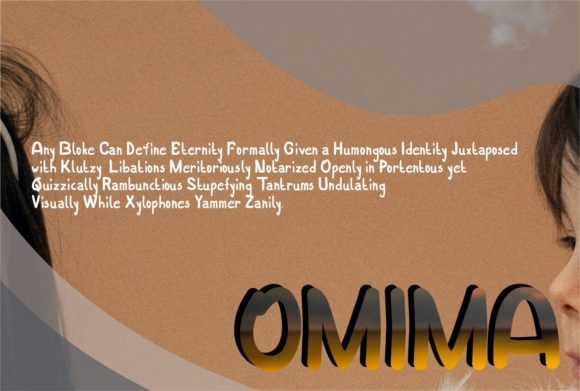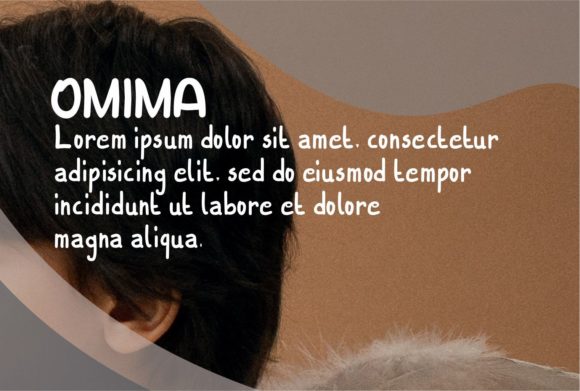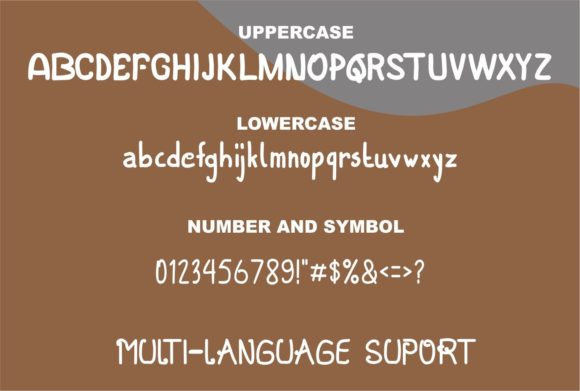
Discover the Power of Omima Font
Remember that moment when you’re brainstorming ideas for your next creative project and the perfect font just isn’t coming to mind? You’ve scoured through countless design resources, searching for that one font that will elevate your design to the next level. Well, search no more. Introducing the Omima Font, a clean and adaptable display font that’s sure to take your designs to new heights.
Whether you’re working on a poster, flyer, or print project, the Omima Font is the perfect addition to your design arsenal. Its high-quality design and transparent background make it a versatile choice for any creative project. And the best part? It’s available for free download, making it an invaluable resource for designers of all levels.
- Unique characteristics: The Omima Font features a clean and minimalist design, with a subtle rounded edge that adds a touch of sophistication to any creative project.
I recently stumbled upon the Omima Font, a design resource that caught my attention with its unique style and high quality. The font is perfect for creative projects that require a touch of elegance and sophistication.
- ✨ Unique style that sets it apart from other fonts
Overall, I’m impressed with the Omima Font’s design and quality. While it may have some limitations, it’s a great addition to any designer’s toolkit, especially for creative projects that require a unique and high-quality font.
The Omima Font is a versatile design resource that offers a high-quality, modern look for your creative projects. This font can be downloaded for free, making it an excellent choice for designers and artists on a budget.
The Omima Font is ideal for use in a variety of creative projects, including logos, branding materials, and social media graphics. Its modern design and transparent background make it a versatile choice for designers and artists.